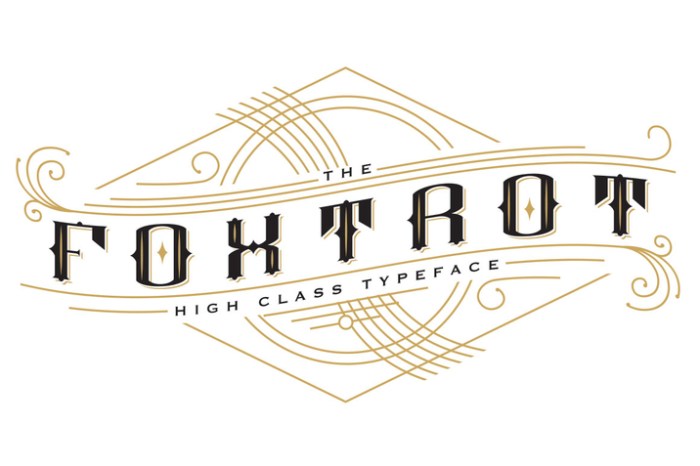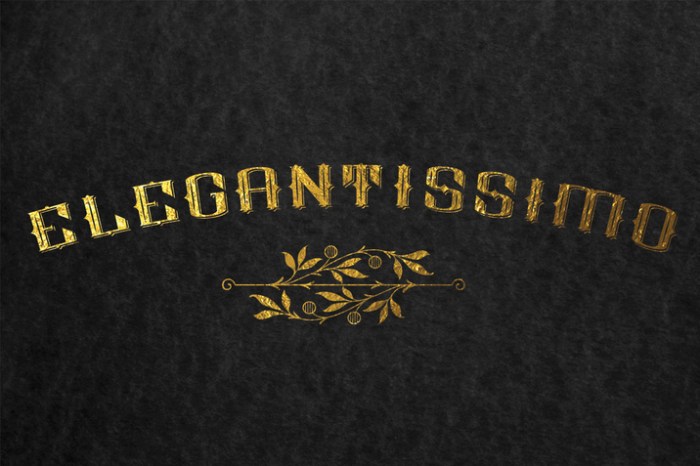
Name : Foxtrot Typeface Files : AI File Size : 1.14 MB Vector : Yes A fancy pants serif typeface that will give anything that touch of class. Invitations, logos or even a tattoo. Top shelf all the way. Foxtrot comes in a vector file for easy editing. And we decided to include 3 modes to suit any situation. Link for more information: https://creativemarket.com/Sleepskin/234417-Foxtrot-Typeface